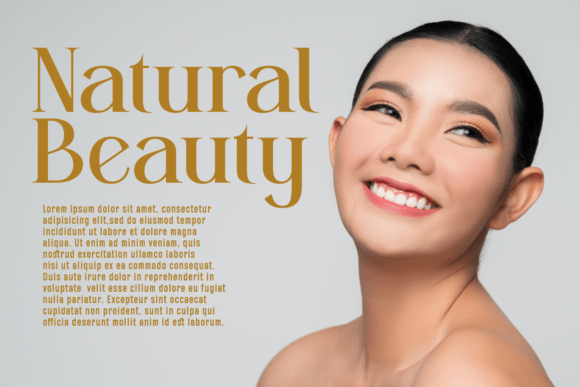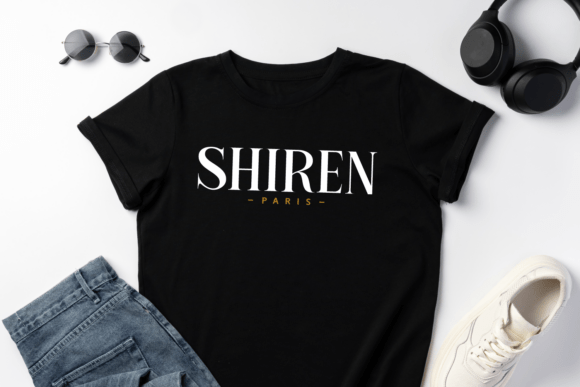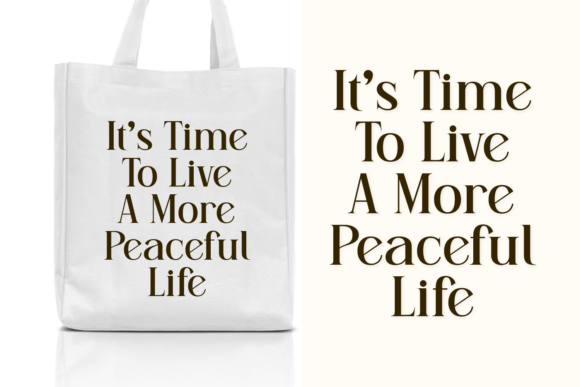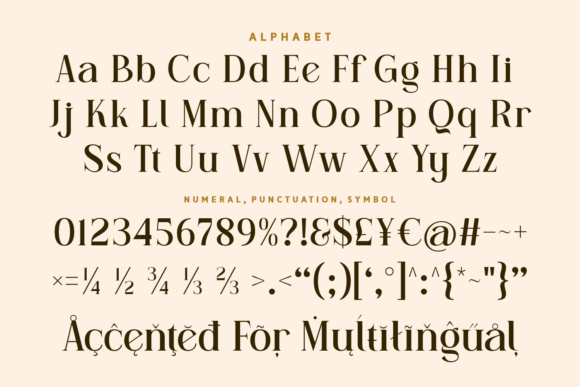
Introduction to Golden Ledger Font
Golden Ledger is a modern elegant serif font that combines timeless sophistication with a fresh contemporary twist.
Its refined letterforms, smooth curves, and subtle contrasts make it perfect for branding, packaging, invitations, and editorial designs Golden Ledger brings a luxurious yet approachable feel, ideal for projects that aim to balance elegance with modern style.
Key Features of Golden Ledger Font
Why Choose Golden Ledger Font?
Golden Ledger Font offers exceptional quality and versatility, making it a valuable addition to your design toolkit. Whether you’re creating for personal projects or commercial use, Golden Ledger Font delivers professional results.